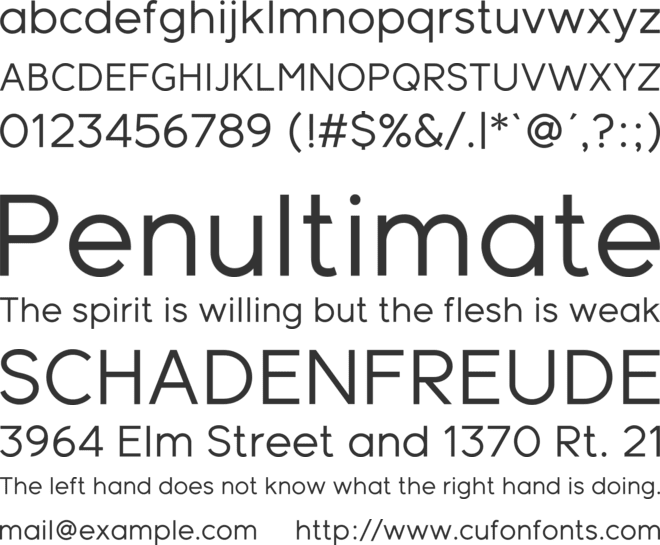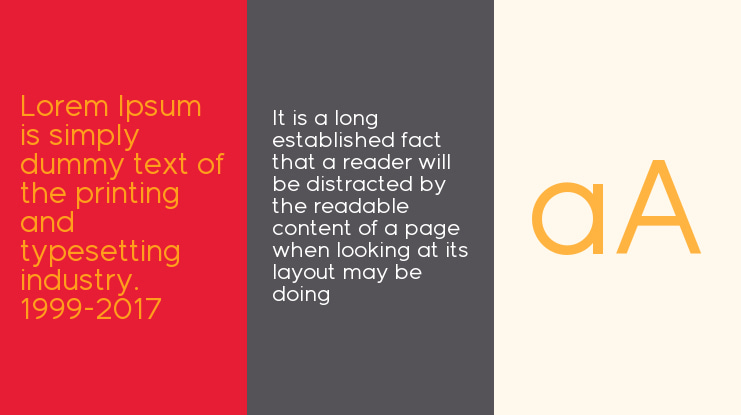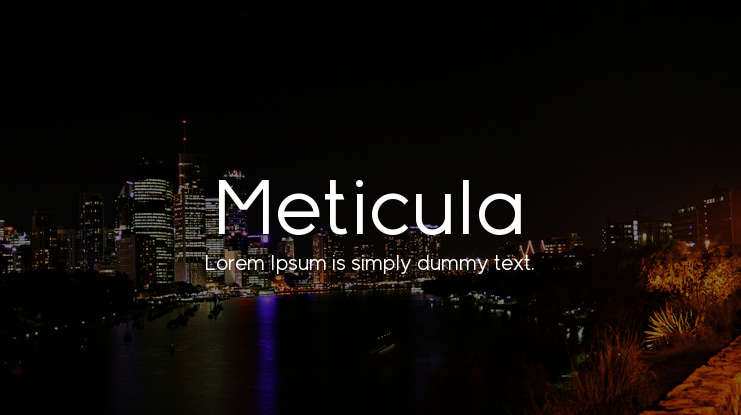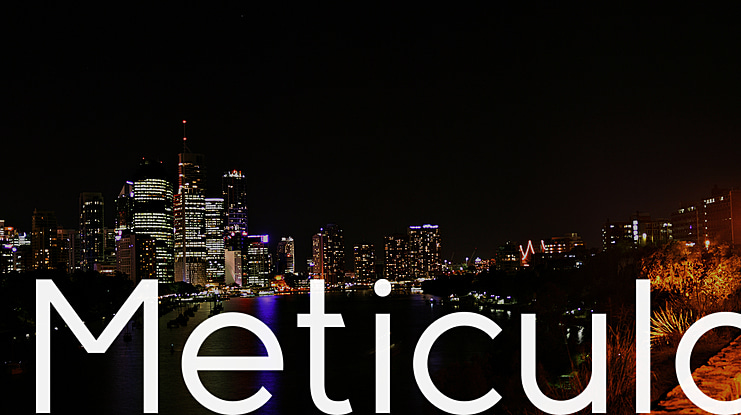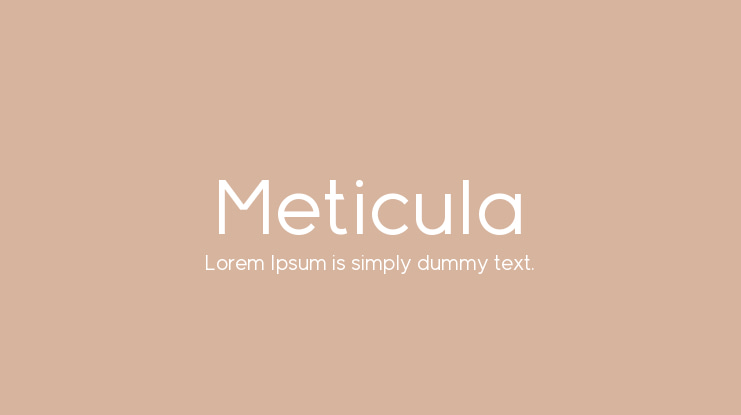
Meticula Font
Kushal Jain
Meticula is a sans-serif font meticulously crafted with geometric shapes and inspired by modern sans typefaces. Supports major Latin based languages, advanced open type features, full set of ligatures, punctuation and major currency symbols. Modification or any alteration of font is strictly prohibited. Get Meticula complete family with 18 styles and commercial license: https://www.myfonts.com/fonts/kushjain/meticula/